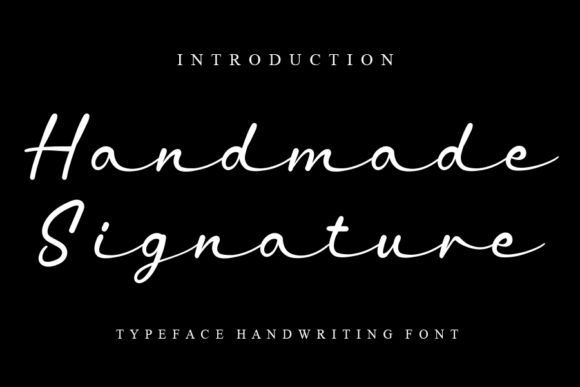
About Handmade Signature Font
Introducing “Handmade Signature,” a delicate and elegant handwritten font that exudes sophistication and charm. With its distinct and well-rounded letters, this font truly is a masterpiece that will elevate your designs to new heights.
The beauty of “Handmade Signature” lies in its refined and artistic appearance. Each letter is carefully crafted with attention to detail, creating a seamless flow that resembles a personalized signature. This gives your designs a touch of authenticity and elegance, making them stand out and leave a lasting impression on your audience.
The versatility of “Handmade Signature” is one of its standout features. It is suitable for a wide range of design projects, including logos, branding, invitations, posters, apparel, greeting cards, stationery, and packaging. Its elegant style adapts effortlessly to various themes and aesthetics, making it a perfect choice for both formal and informal designs.
Using “Handmade Signature” in your projects will infuse them with a sense of luxury and refinement. The font’s graceful curves and flowing lines lend an air of sophistication, making it ideal for premium and high-end brands. Whether you’re designing for a fashion label, a boutique, or a luxury event, this font will add a touch of class and exclusivity.
The handmade quality of “Handmade Signature” makes it feel personal and intimate. It creates a connection with your audience and conveys a sense of craftsmanship and attention to detail. It’s perfect for creating custom artwork, personalized gifts, or adding a heartfelt touch to your designs.
This font’s elegant and timeless appeal makes it a great choice for various occasions and events. Whether you’re designing wedding invitations, anniversary cards, or special occasion posters, “Handmade Signature” will bring an air of elegance and romance to your projects.
In conclusion, “Handmade Signature” is a delicate and elegant handwritten font that exudes sophistication and charm. Its well-rounded letters and versatile style make it a perfect choice for creating spectacular designs across a range of applications. Fall in love with this font, and let it add a touch of artistry and elegance to your creative projects.